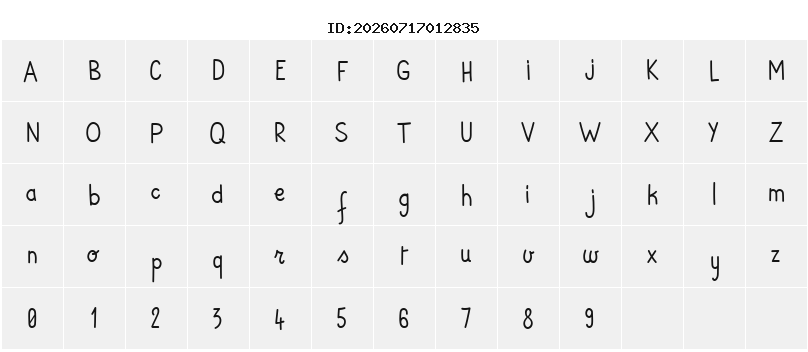
• Font Name: ANDi
• Designer: Benoît Champy
About ANDi.ttf
ANDi.ttf is a modern, elegant sans-serif font designed for ultimate readability and visual harmony. Perfect for branding, headlines, web design, and print materials.